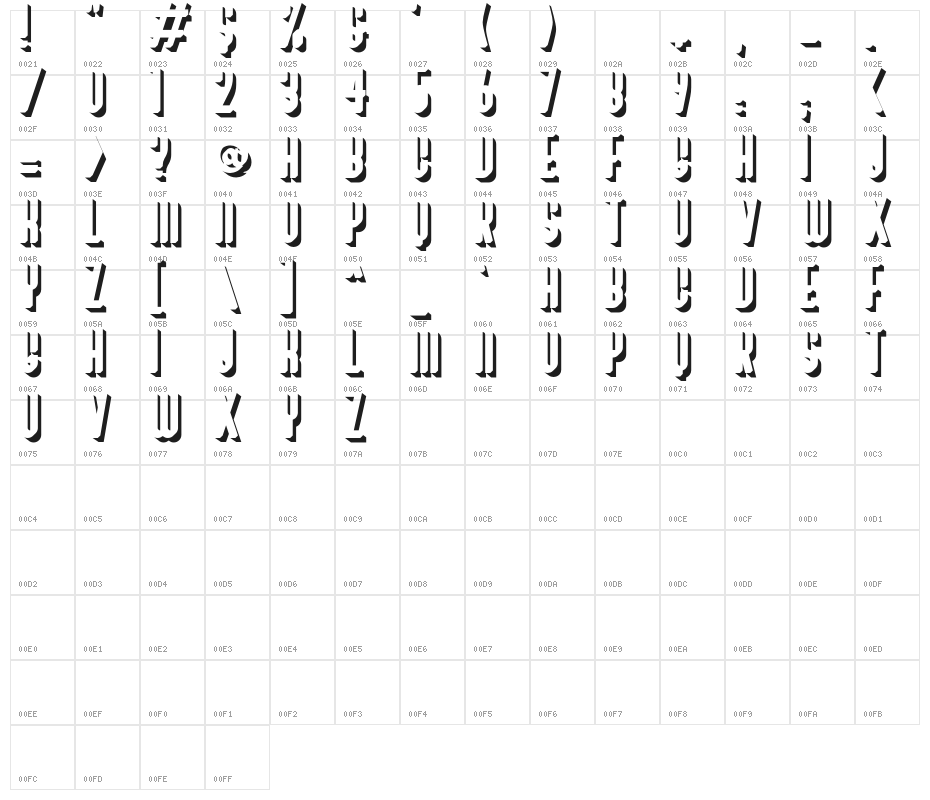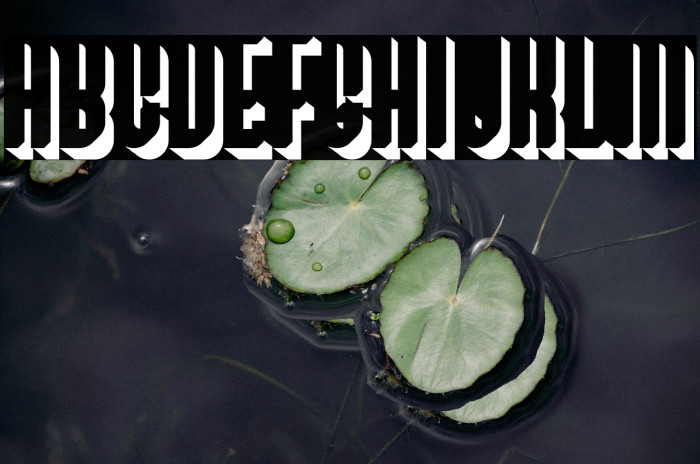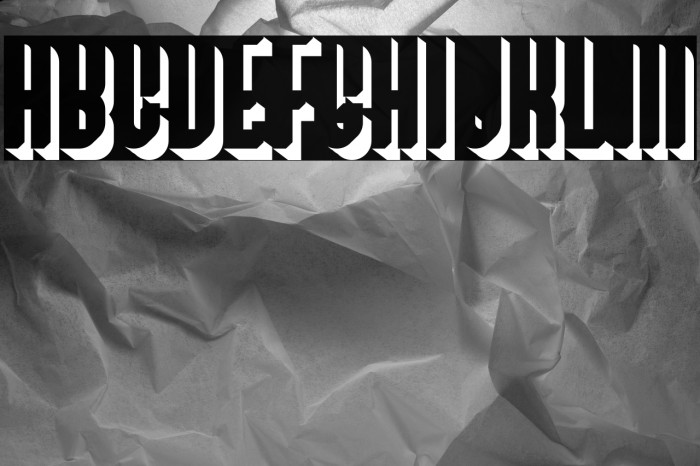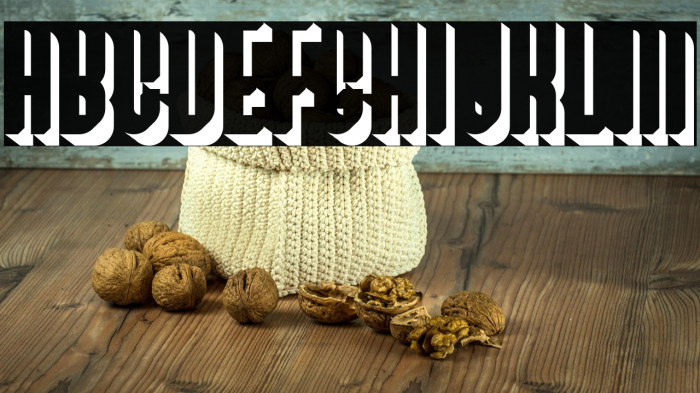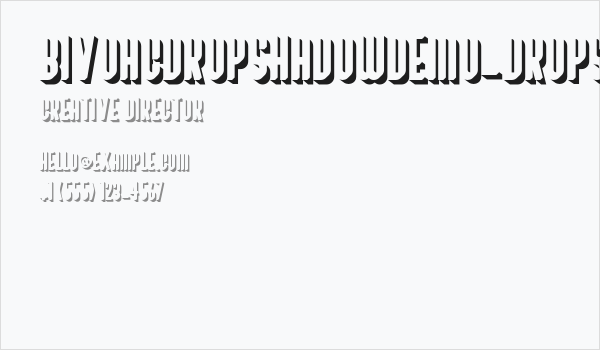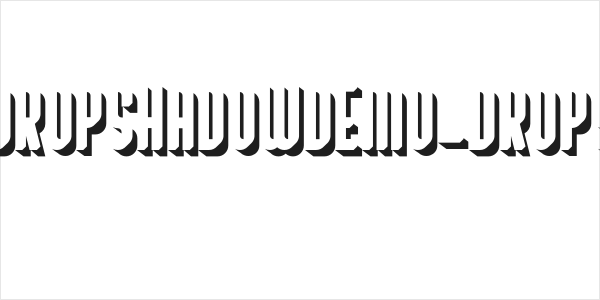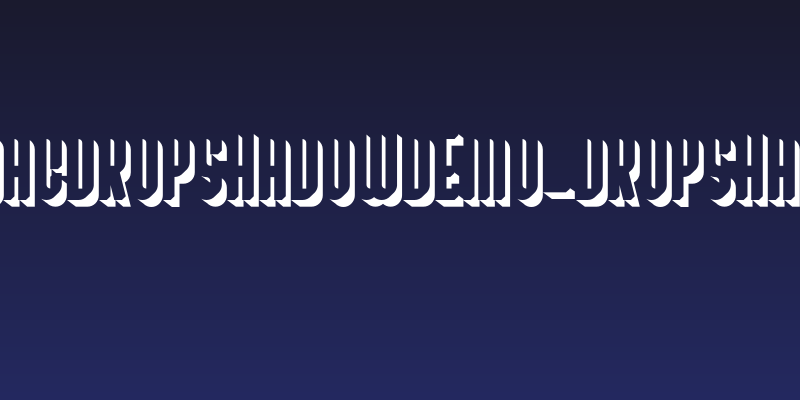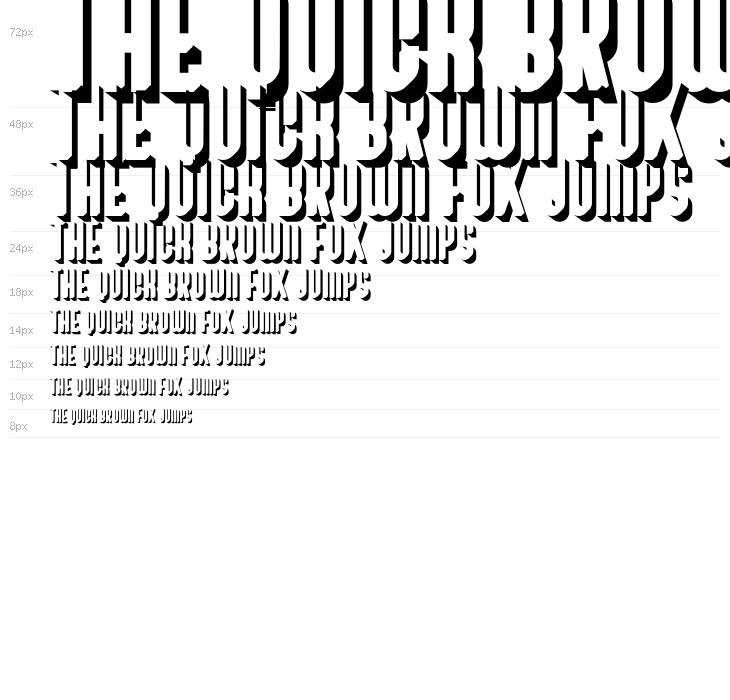
BivoacDropShadowDemo-DropShadow Font
| Progetti proposti | Perfect for poster designs, branding projects, and any creative work that requires a bold, attention-grabbing typeface. |